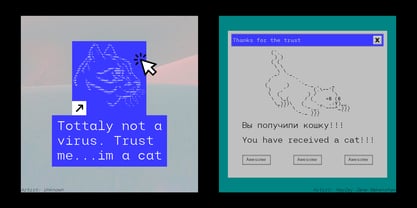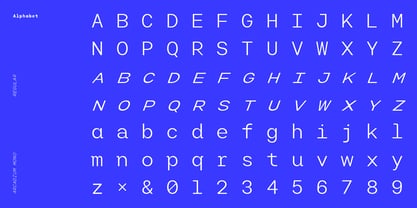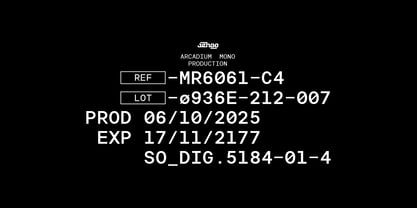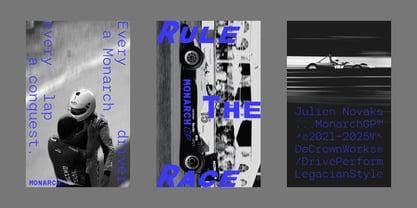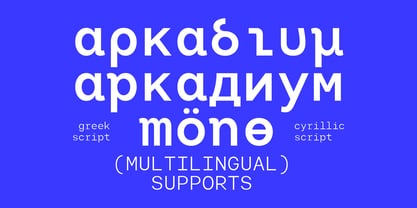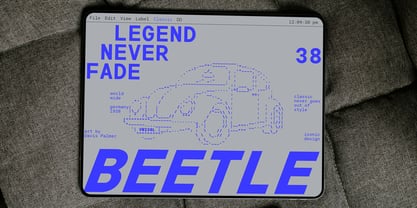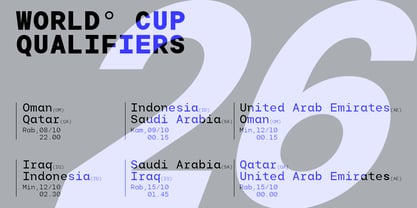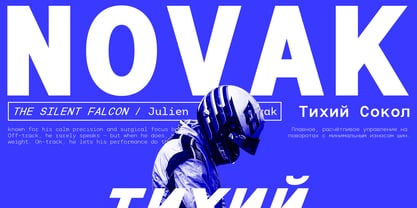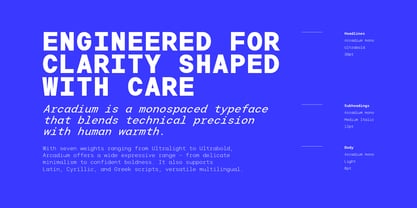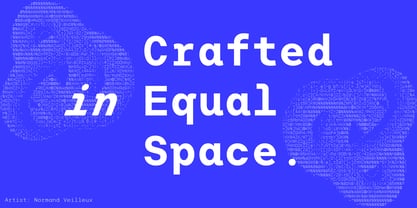
Arcadium Mono
by Jehoo Creative
The Arcadium Mono Font Family was designed by Anwar Patihan and published by Jehoo Creative. Arcadium Mono contains 14 styles and family package options.
Where Precision meets personality. Arcadium Mono is a humanist monospaced typeface designed to bring warmth and individuality into structure. Built on a foundation of precision and balance, it challenges the rigidity of traditional monospace design with distinctive, charming quirks that give every letter a unique voice. While its spacing remains perfectly measured, Arcadium Mono embraces subtle asymmetries and humanist proportions that make reading more natural and expressive. Its forms are clean and confident, yet never cold — designed for those who appreciate order with a hint of personality. The family consists of seven weights, each accompanied by a matching italic, creating a versatile set of fourteen styles suitable for text, interface, and display use. Containing over 940 carefully crafted glyphs, Arcadium Mono offers extensive language coverage, including Latin, Cyrillic, and Greek, ensuring global accessibility and typographic consistency. From code editors to editorial design, from branding to digital products, Arcadium Mono adapts seamlessly across mediums — offering both the clarity of logic and the beauty of human touch. Arcadium Mono is more than a monospaced typeface — it’s a dialogue between precision and personality, structure and soul.